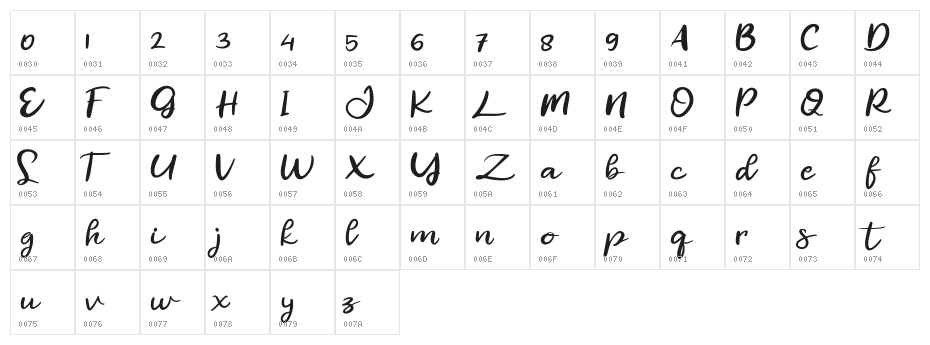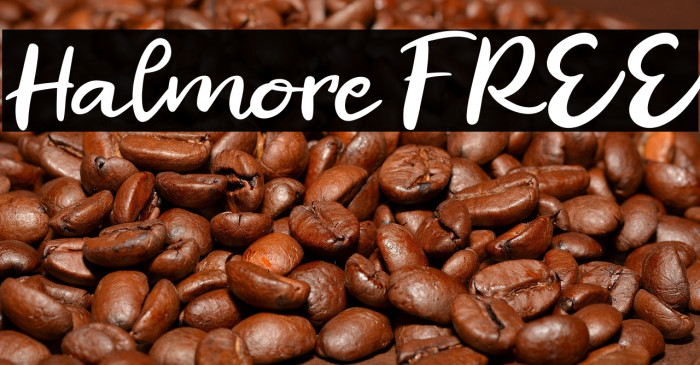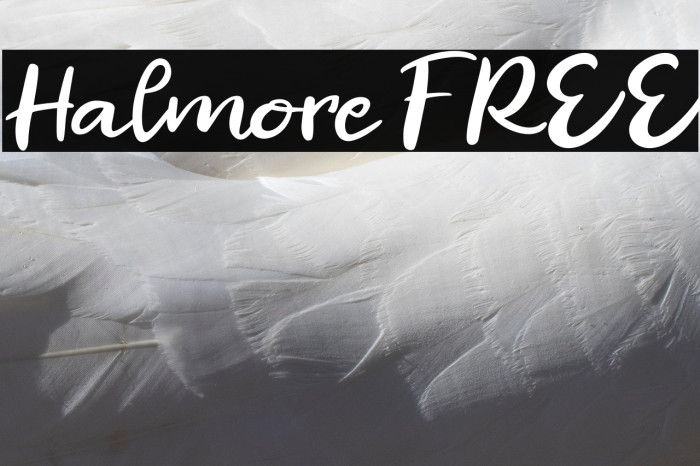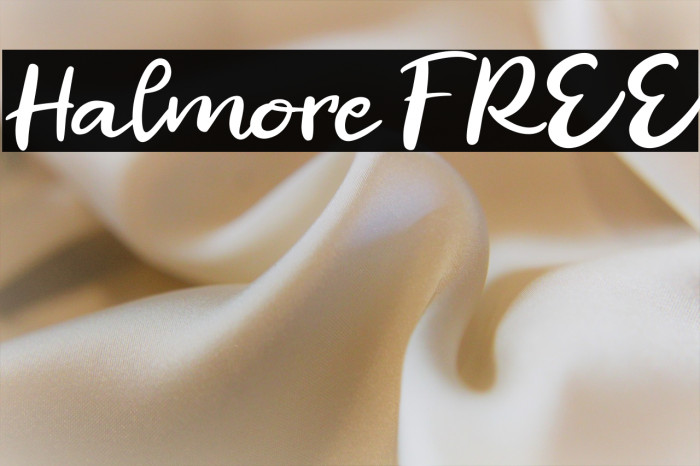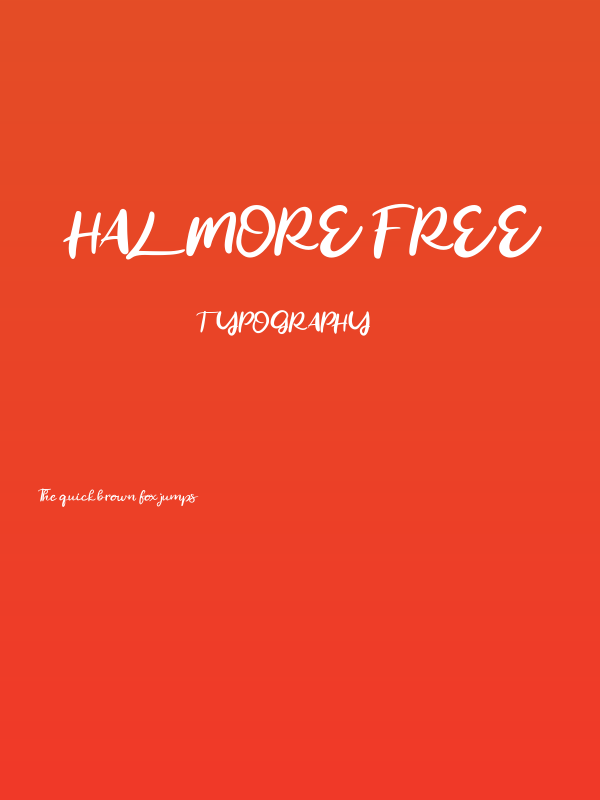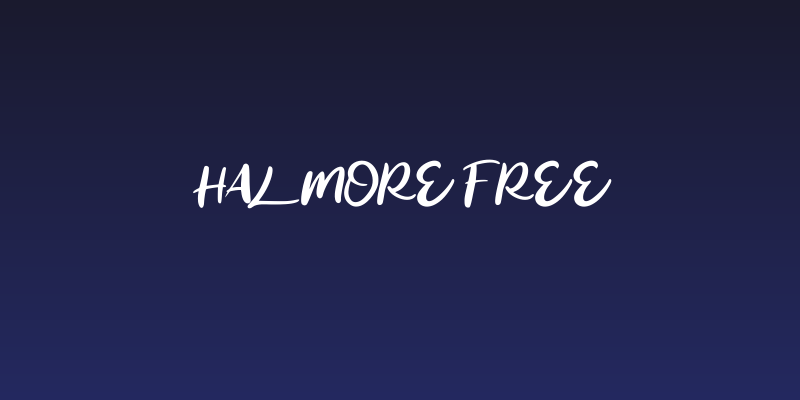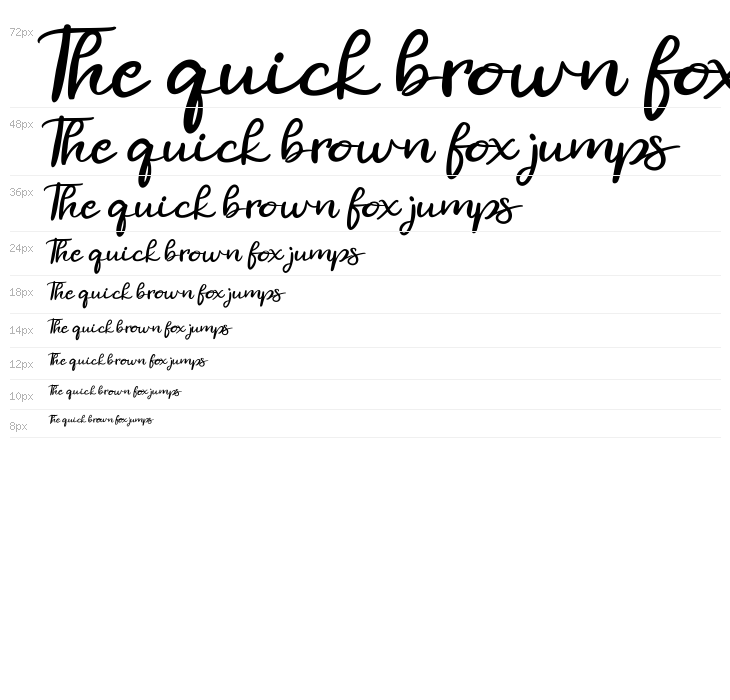
Halmore FREE Font
Halmore FREE Description
This font features a lively and flowing script style, characterized by its elegant and smooth curves. The letters are interconnected, creating a sense of continuity and fluidity. The uppercase letters are bold and expressive, while the lowercase letters maintain a consistent rhythm, enhancing readability. The numerals are well-integrated into the design, matching the overall aesthetic. Special characters are crafted with the same attention to detail, ensuring a cohesive look across all elements. This font exudes a sense of creativity and elegance, making it suitable for a variety of design projects.
| Use Case | Logos, Invitations, Branding |
| Proposed Projects | Ideal for wedding invitations, greeting cards, branding, and logo design. |